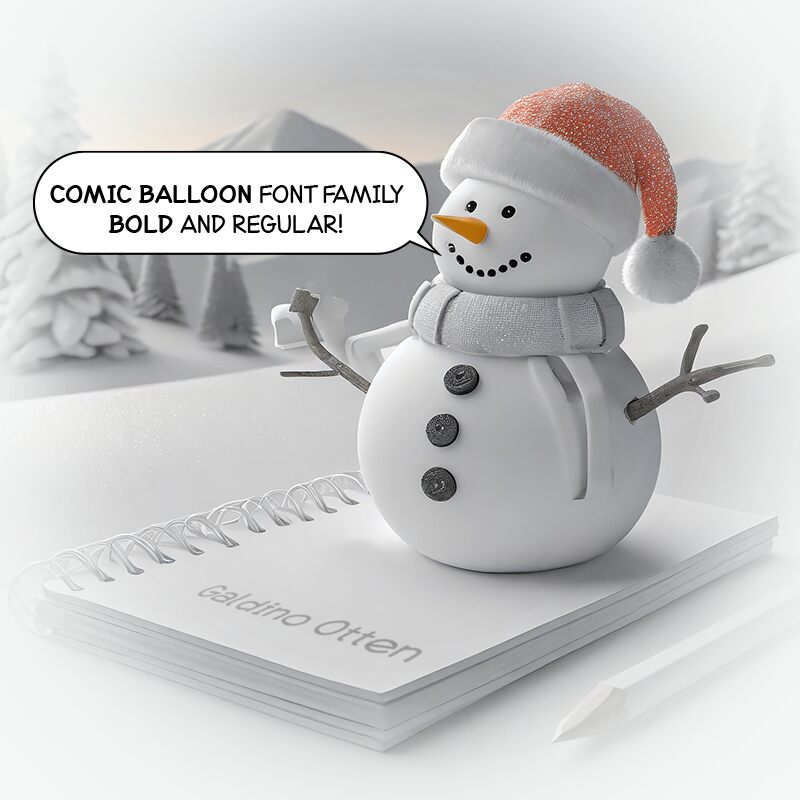
Comic Balloon Bold
Comic Balloon Bold by Galdino Otten Fonts is a playful and energetic member of the Comic Balloon font family, designed to capture the whimsical essence of comic book dialogue. Its bold, rounded characters exude a friendly and approachable vibe that's instantly engaging. The style embodies fun with a nod to classic comic book lettering, making each word seem as if it could leap off the page in an expression of joy or excitement.
This display font is perfect for projects that call for a touch of humor and lightheartedness. From children's book titles and party invitations to comic strip dialogues and casual branding, Comic Balloon Bold infuses personality into any design. Its standout presence ensures that messages not only catch the eye but also warm the heart with its charming style.